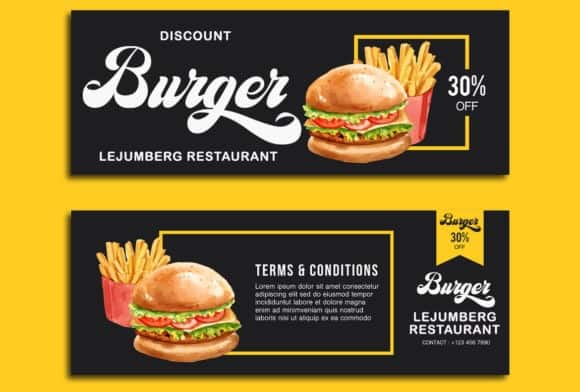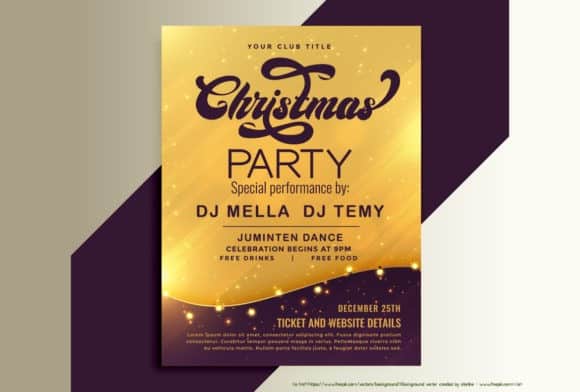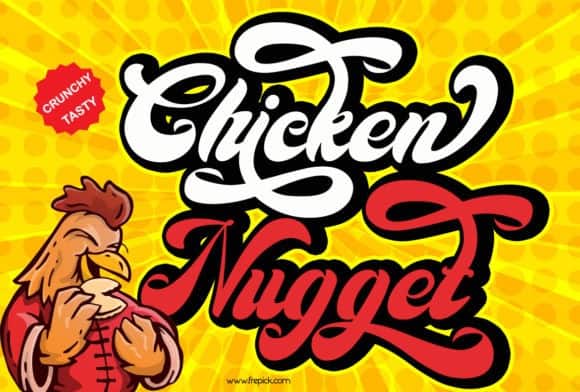
Christmas Time Script Font
Christmas Time Script Font is a bold script which is purposely made for logotype. This typeface is a flowing and festive handwritten font manufactured by Sealoung. With a retro style and a warm feel, this type of font perfectly made to be applied especially in logo, and the other various formal forms such as invitations, labels, logos, magazines, books, greeting / wedding cards, packaging, fashion, make up, stationery, novels, labels or any type of advertising purpose.